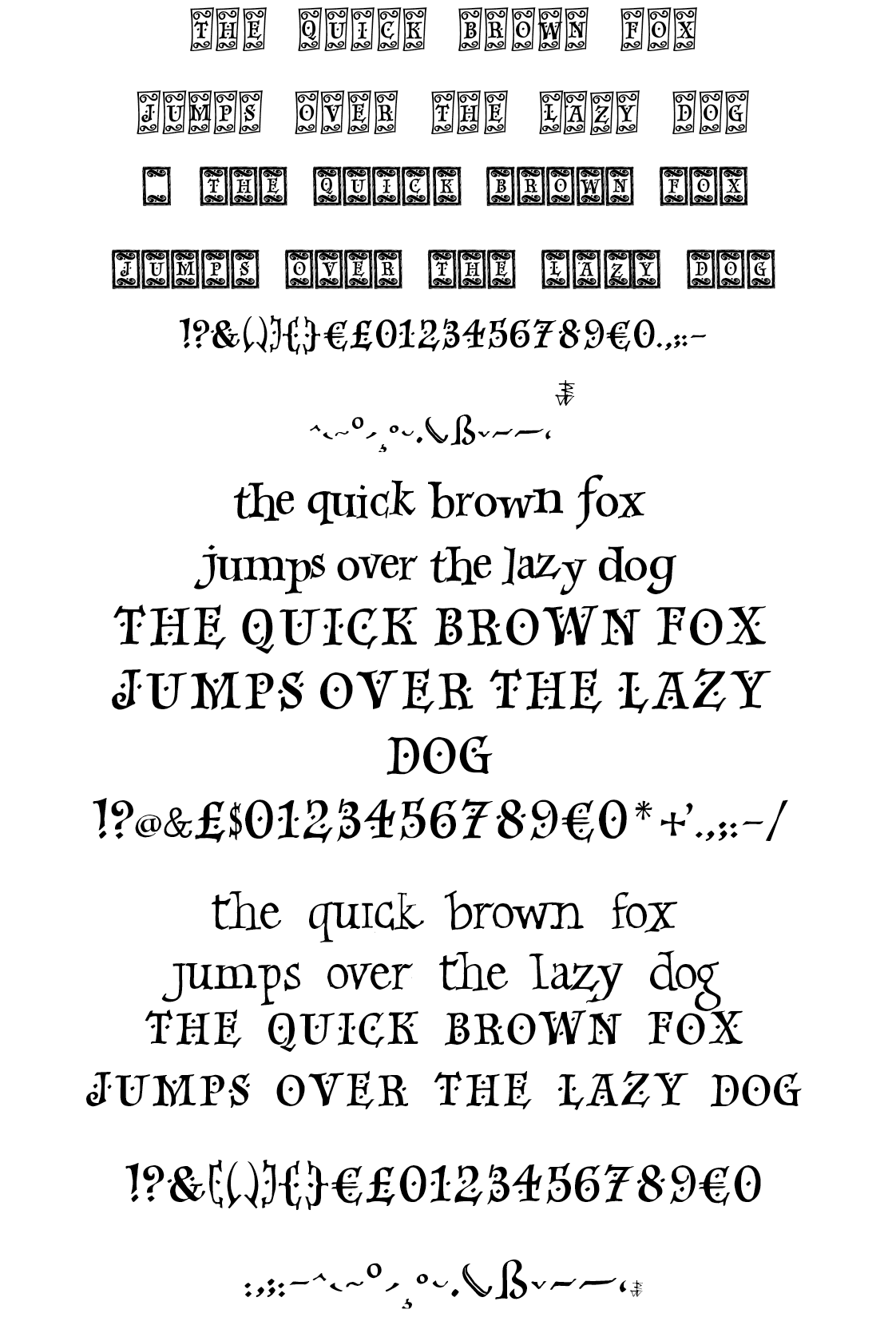
orn in 1947 in Portsmouth, England and after schooling entered a five-year apprenticeship with the Metal Box Company, Portsmouth. Trained in Design, Lettering, Calligraphy and Sign Writing under gifted lettering artists Norman March and Dieter Smith. During day release to Portsmouth College of Art & Design studied Fine Typography under Stan Kerry obtaining Full Technological Certificate in City & Guilds, London.
Self taught in further Calligraphy, Illustration and Water Color Painting and Experimental Lettering for everday use. Since then has worked in various industrial posts in Design, Lettering, Illustration and Typography, then working for about 15 years as a freelance designer and illustrator mainly for Christian Literature production and teaching Typography part-time at Portsmouth College of Art.
During this time producing Bible Script™ Calligraphic Type Face with flourishes, Fine Hand™ followed by Calligraphic Ornaments and Bradley Hand™ in close conjunction with Colin Brignall of Letraset UK and recently ITC Type Corporation originally created for Dry transfer lettering and now for Apple Macintosh Computers and PCs.
Richard's recent designs with David Kettlewell include four which are now published in final versions at MyFonts - Alice ScrollTip, and the Sevillia suite with Sevillia Tiles Formal and Informal, Standing text and Dancing Text, Ricks' Relaxed Italic and Ashbourne 1241.
Future releases will include Country Cursive, Curly Classic, Rick's Graphica, Rick's Rustic Caps, Rick's Rustic lettering, and Rick's Square Caps.